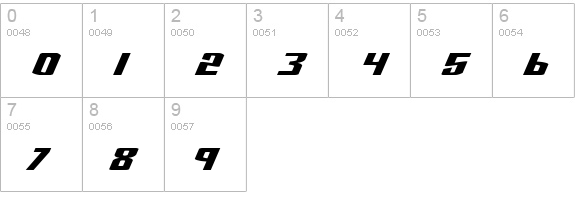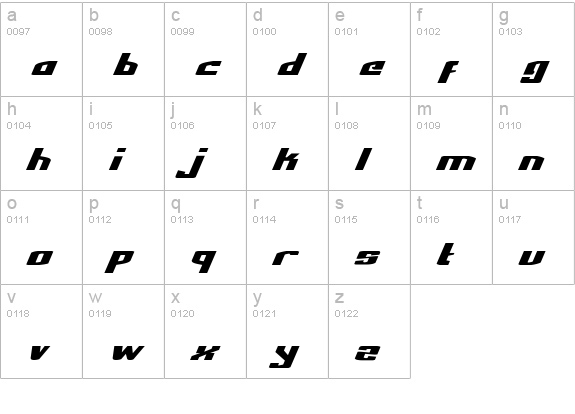
National Express Exp Italic Font Details
National Express Exp Italic is a distinctive, italic variant in the National typeface family \xE2\x80\x94 well suited to design and typography projects.
National Express Exp Italic font is a sleek and modern typeface that exudes elegance and sophistication. Its italicized design adds a touch of flair and style to any project, making it perfect for use in branding, advertising, and editorial design. This versatile font is ideal for creating eye-catching headlines, signage, and promotional materials. Its clean lines and distinctive letterforms make it easy to read and visually appealing. National Express Exp Italic font is sure to make a bold statement and leave a lasting impression. Best of all, National Express Exp Italic font is available for free download at FontsMarket.com. Simply visit the website to access this beautiful typeface and enhance your design projects with its timeless charm. Grab your free download today and elevate your typography game with National Express Exp Italic font.